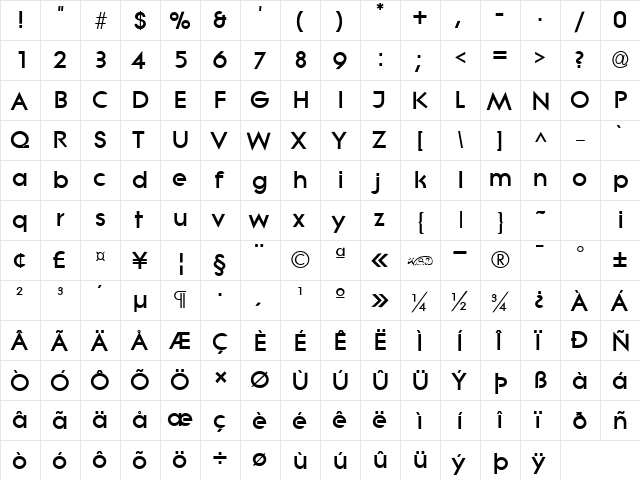
Lithe Extrabold Regular Font Preview
Lithe Extrabold Regular
Lithe Extrabold Regular Font Details
Design Context for Lithe Extrabold Typeface
Lithe Extrabold offers clean, dependable letterforms without strong stylistic allegiance, making it a practical choice for designers who need flexibility. The heavy weight commands attention and anchors typographic hierarchies.